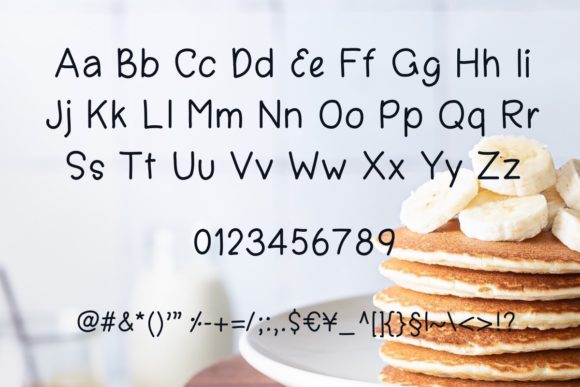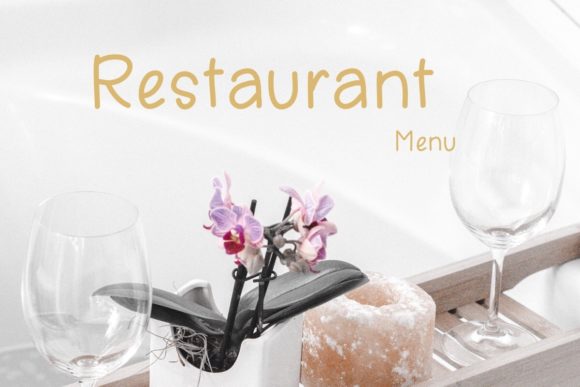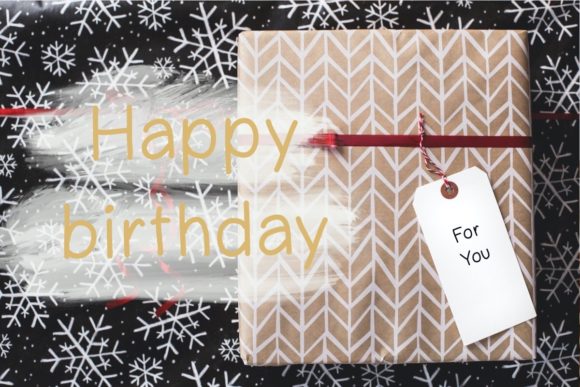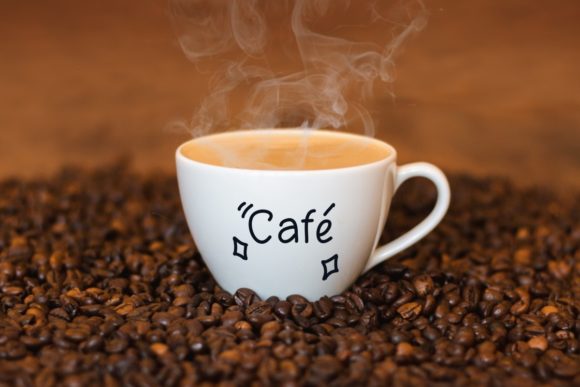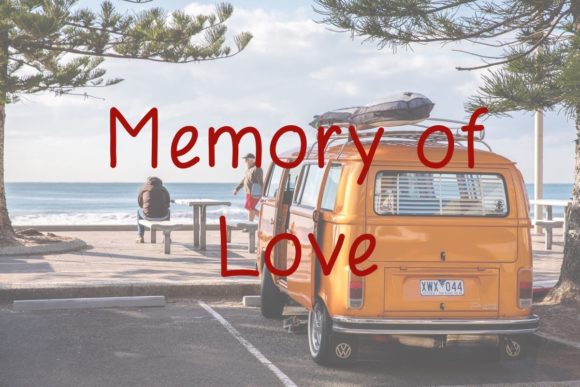
The Ultimate Design Sidekick: Easy & Easy Font
I’ll never forget the time I was working on a whimsical craft project, pouring my heart into designing the perfect invitation. I had the colors, the illustrations, and the layout just right, but something was missing – the perfect font. That’s when I stumbled upon Easy & Easy, a sweet and friendly handwritten font that instantly elevated my design. Its natural and unique style made it incredibly fitting to a large pool of designs. The only limit was my imagination!
What I Love About Easy & Easy ✨
- ✅ Versatility: Easy & Easy can be used for a wide range of projects, from crafting and DIY tutorials to social media graphics and invitations.
- ✅ Readability: The font is incredibly easy to read, even at smaller sizes, making it perfect for body text or captions.
- ✅ Uniqueness: Easy & Easy has a distinct, hand-crafted feel that sets it apart from more generic fonts.
- ✅ Ease of use: This font is a breeze to work with, even for those who are new to design or typography.
While Easy & Easy is an amazing font, it’s not without its quirks. For example:
- ⚠️ Limited formal use: Due to its casual, handwritten nature, Easy & Easy might not be the best choice for very formal or corporate designs.
- ⚠️ Glyph limitations: While the font has a range of useful glyphs, it might not have every special character or symbol you need.
The Story Behind Easy & Easy: Designer Inspiration
While the true story behind Easy & Easy remains a mystery, it’s easy to imagine that the designer was inspired by the whimsical world of hand-lettering and craft. Perhaps they wanted to create a font that would make designers feel like they’re crafting something special, with a personal touch. Whatever the inspiration, Easy & Easy has undoubtedly become a beloved font among creatives.
Q: Is Easy & Easy suitable for body text?
A: While Easy & Easy is primarily designed for display use, it’s also surprisingly readable at smaller sizes, making it suitable for short blocks of body text.